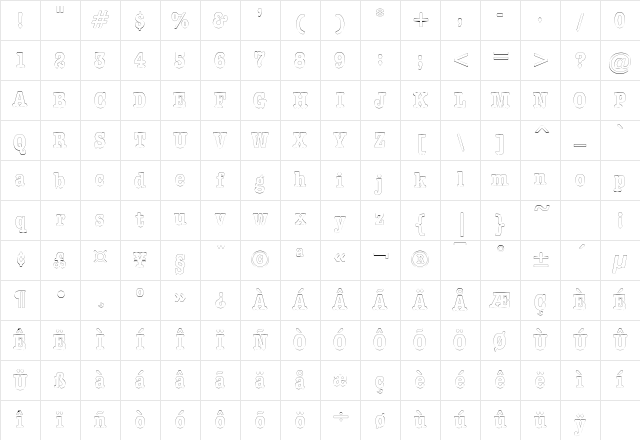
DatelineCondensedOutline Bold
DatelineCondensedOutline Family
Design Context for DatelineCondensedOutline
DatelineCondensedOutline is built around its visual character rather than neutral utility - its distinctive forms are designed to make an impression at display sizes. Its bold stroke weight gives it real presence on the page.
Font Pairing: Pair with a clean neutral sans-serif for body copy to let DatelineCondensedOutline's character lead without overwhelming the composition.
Pro Tip: Use DatelineCondensedOutline exclusively at display sizes - it was designed to be seen, not read at length. Let a neutral companion handle body copy.